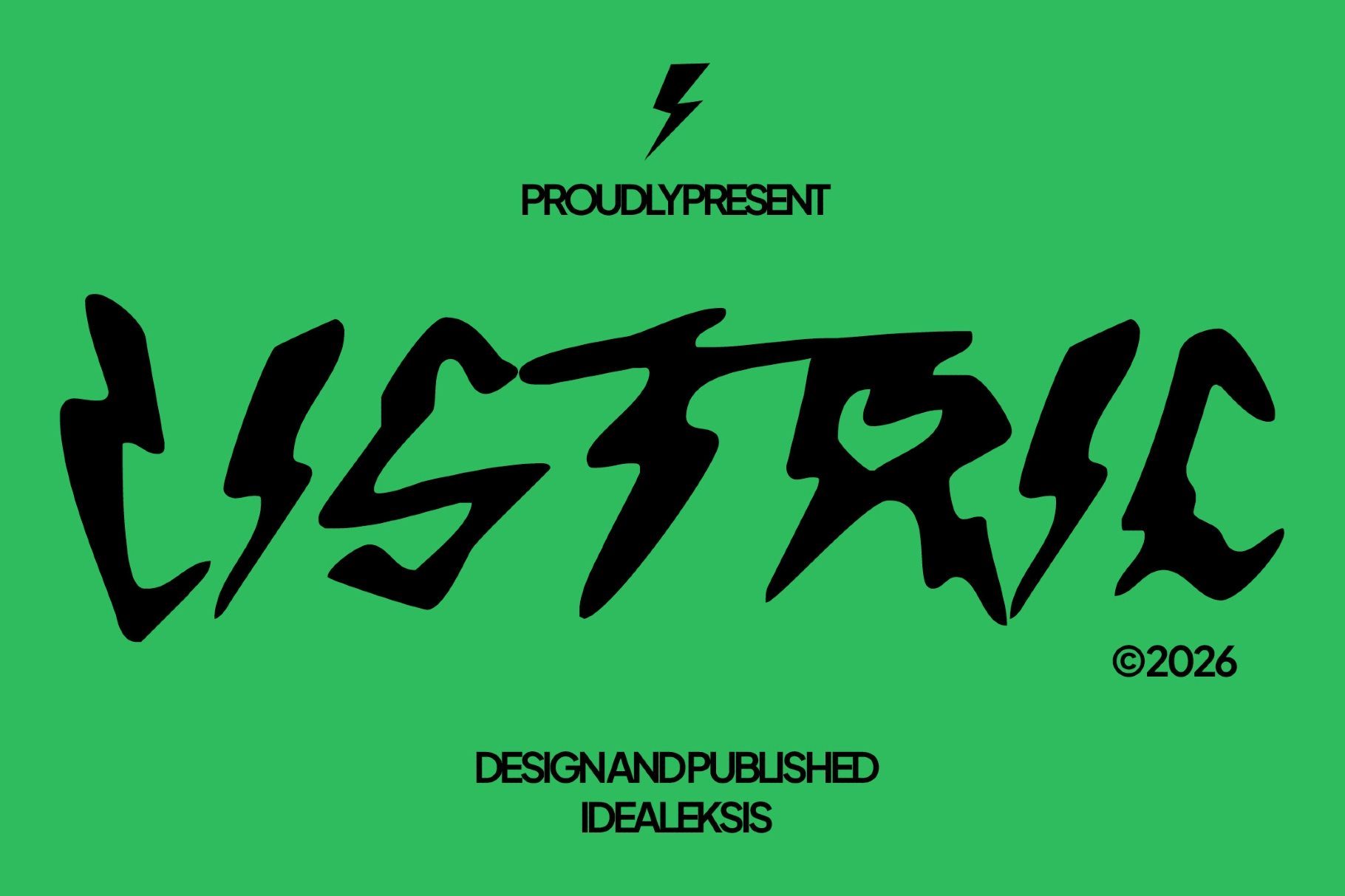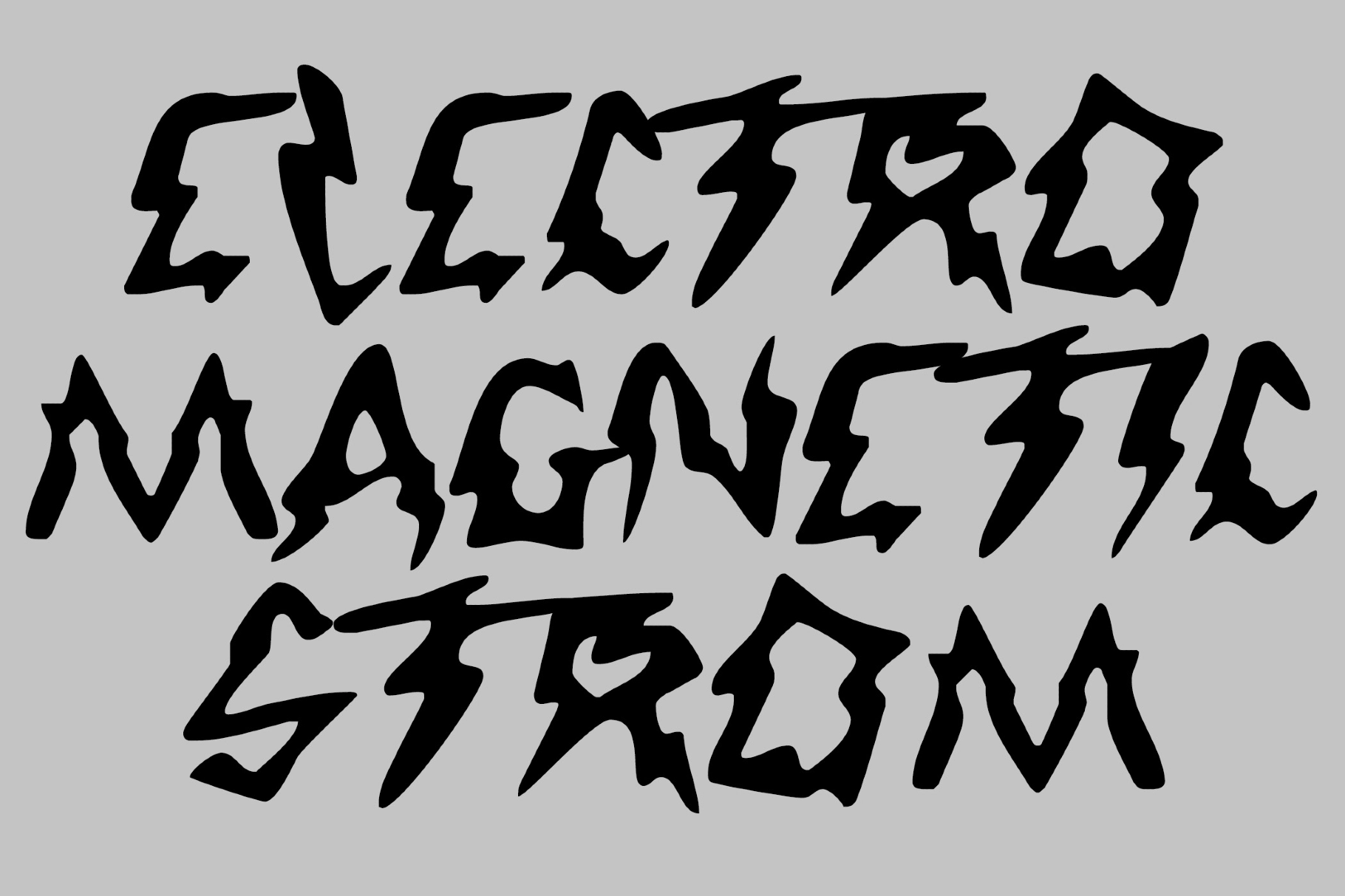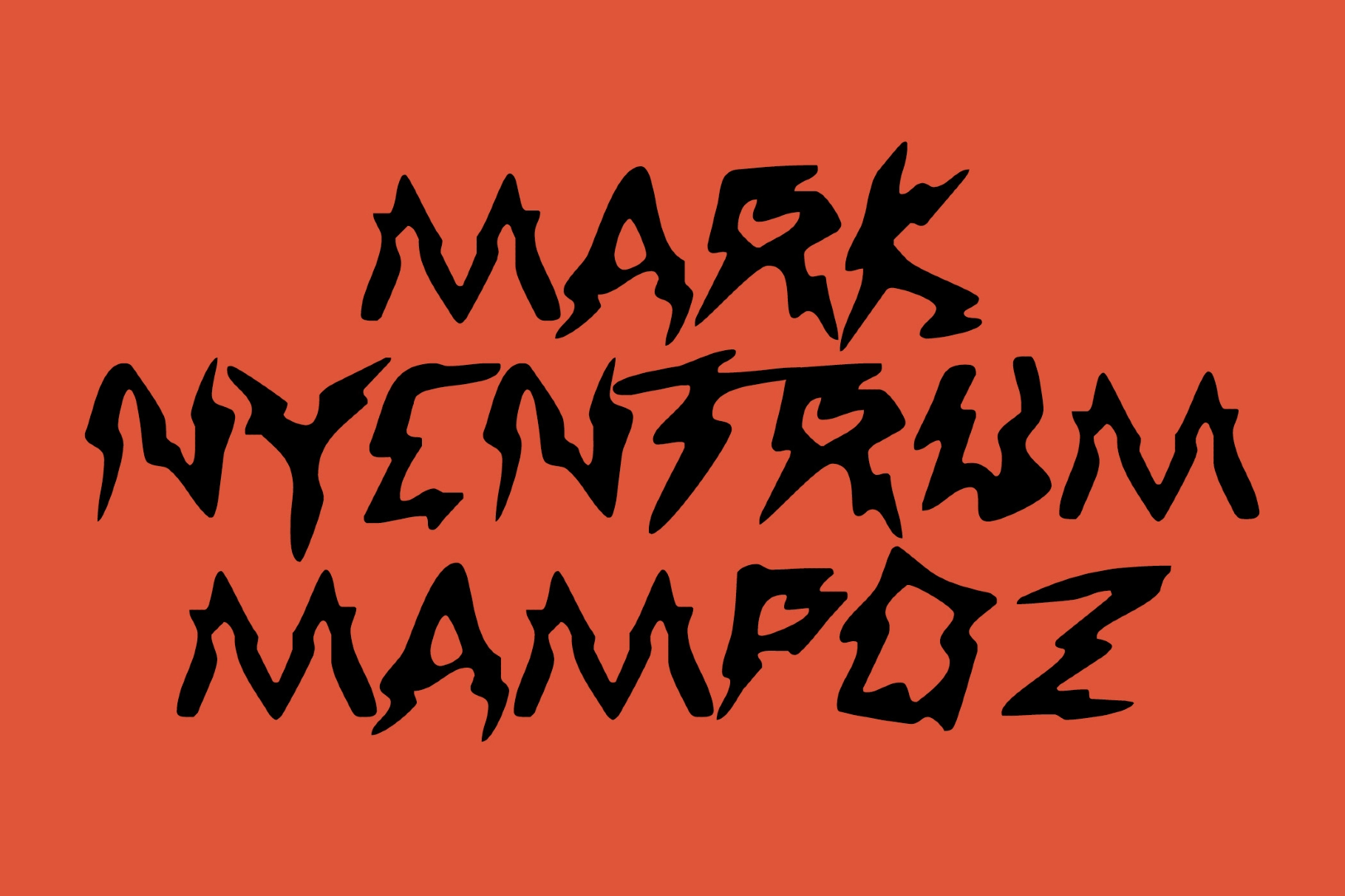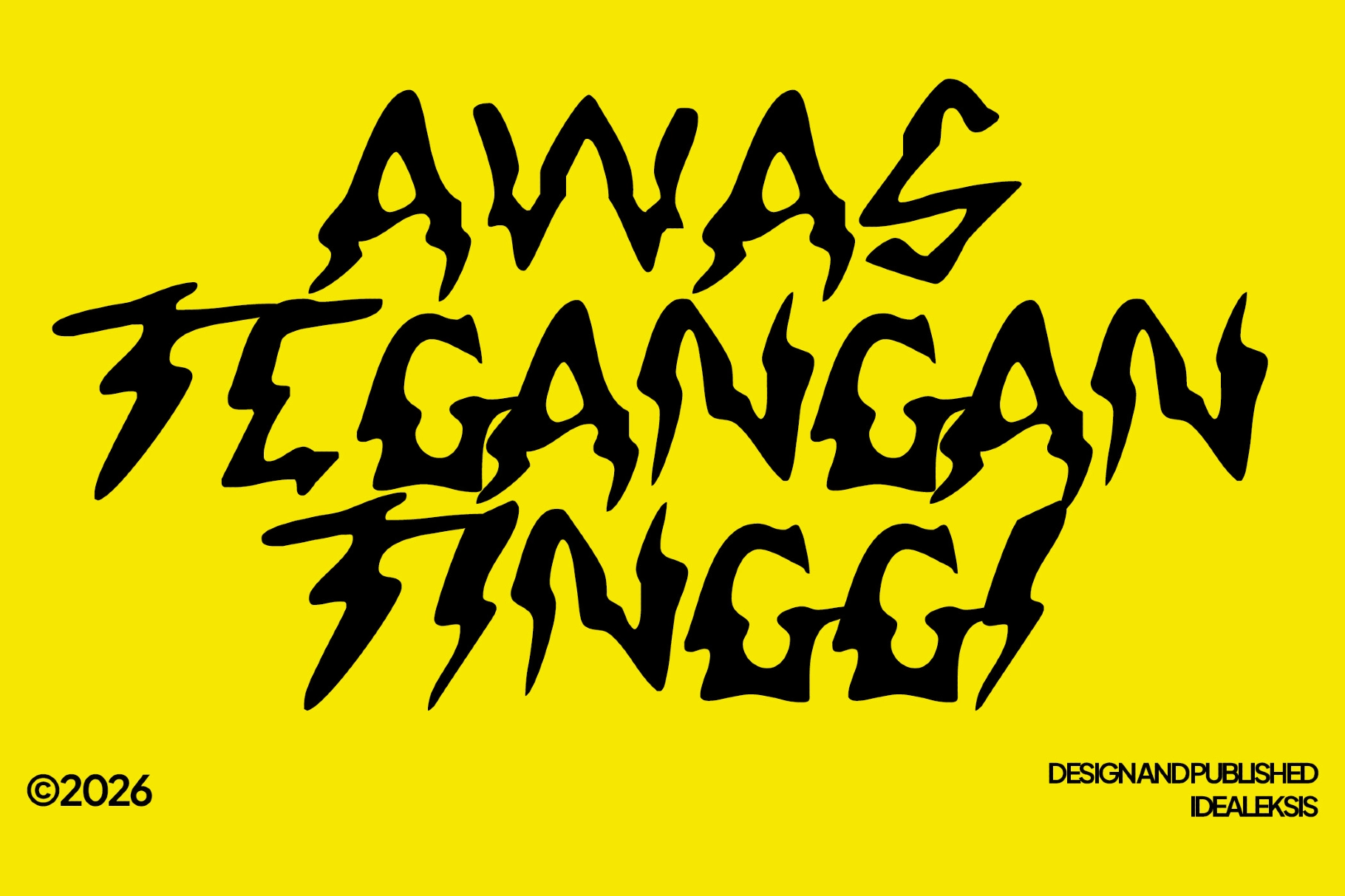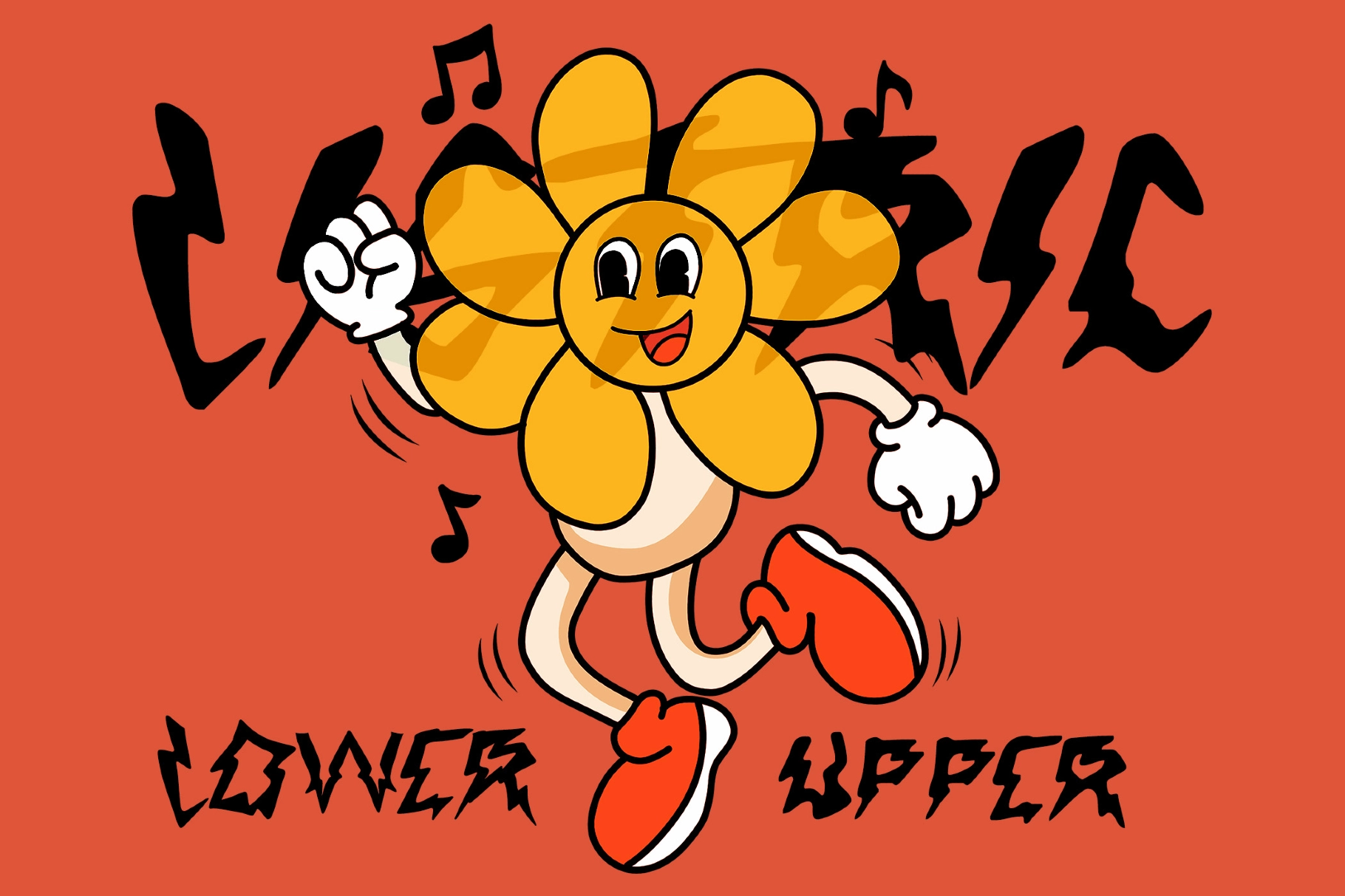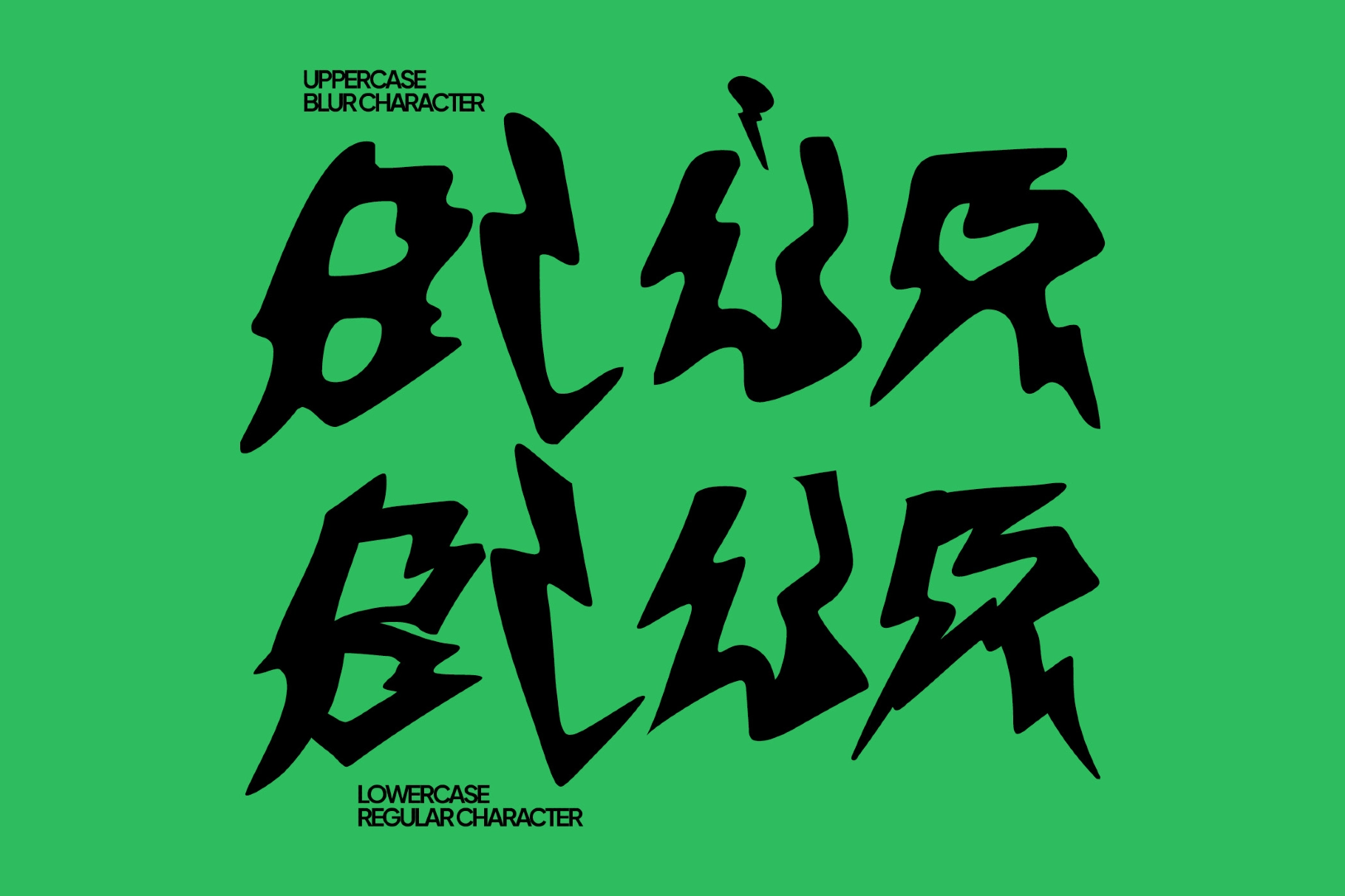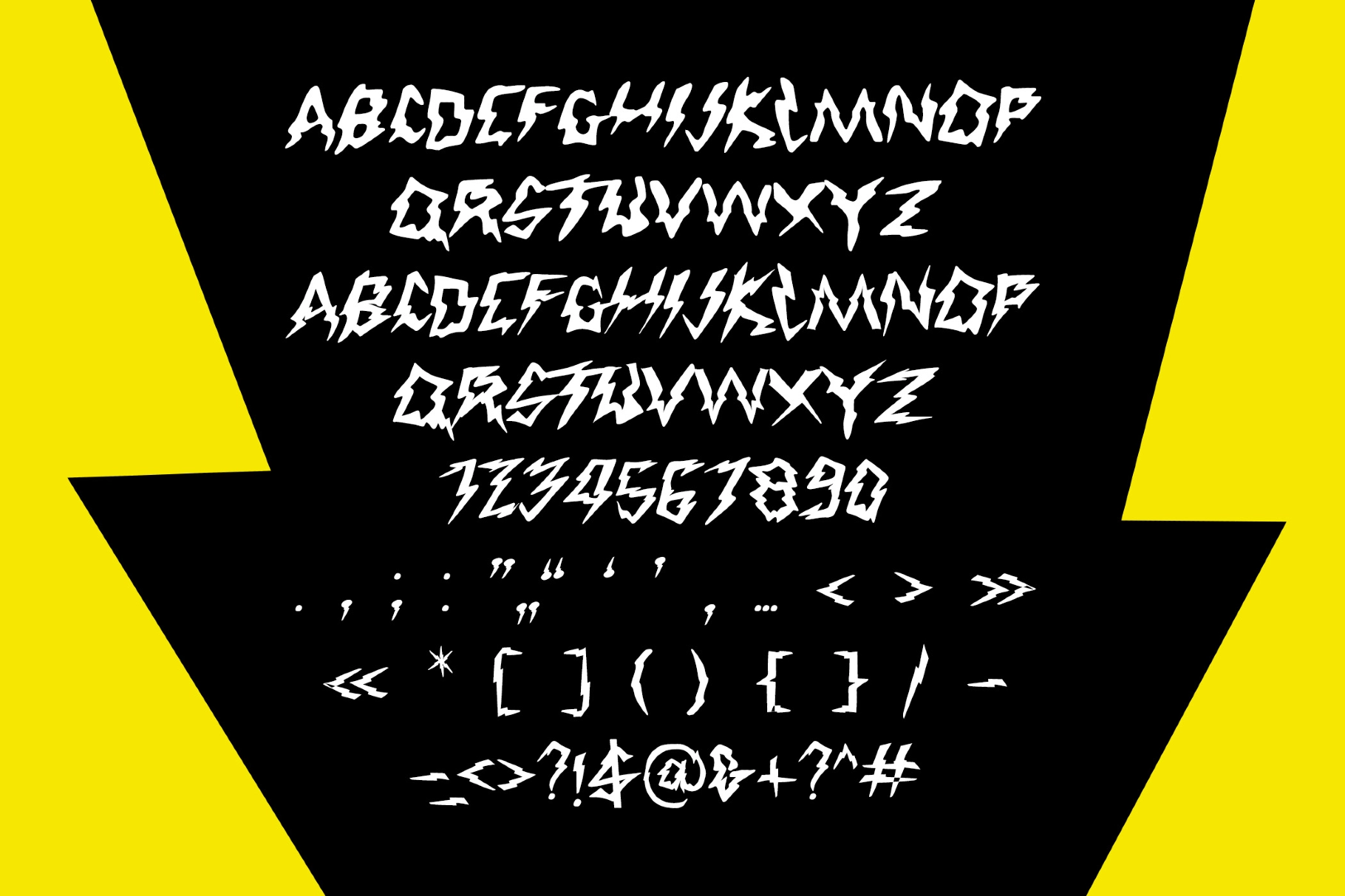
Listric - Graffiti Display Font
Listric
Listric, Graffiti Display Font strikes with jagged, high-voltage forms that echo graffiti tagging and punk zine lettering, recalling the raw energy of 1980s street culture and underground music flyers. It suits album covers, streetwear branding, skate graphics, event posters, gaming titles, and bold social visuals, giving each composition a charged, rebellious presence with sharp visual impact.
- All caps uppercase characters
- Numbers & punctuation
- Sharp, lightning-inspired shapes